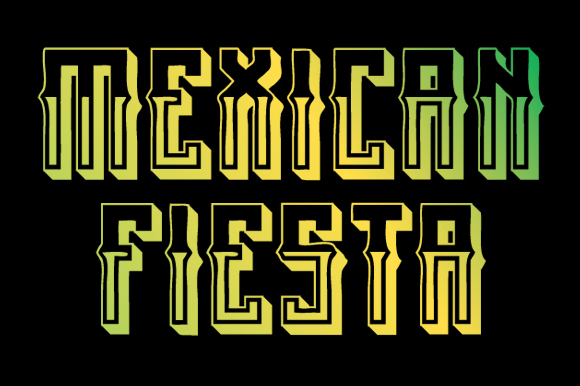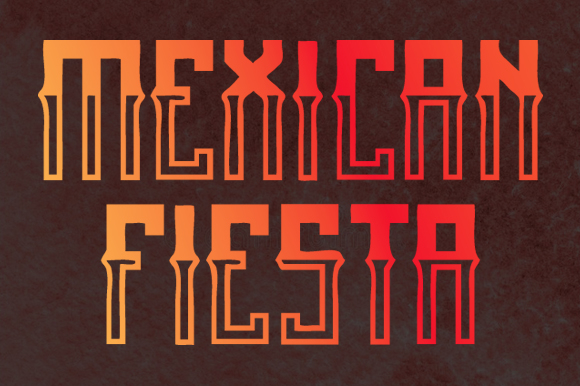
Mexican Fiesta Font
About Mexican Fiesta Font
Mexican Fiesta is a lovely blackletter font with a fascinating charm. Use it for any design project that requires a festive appearance!